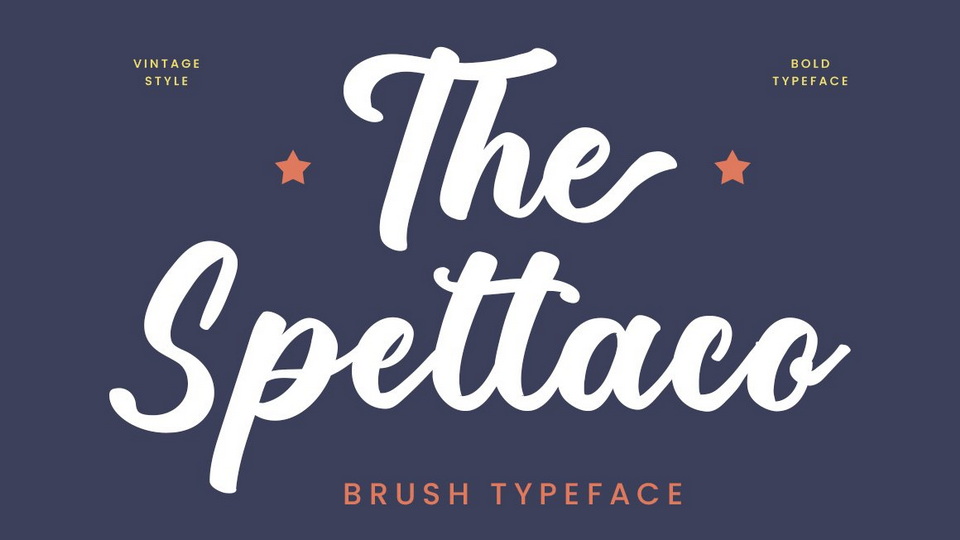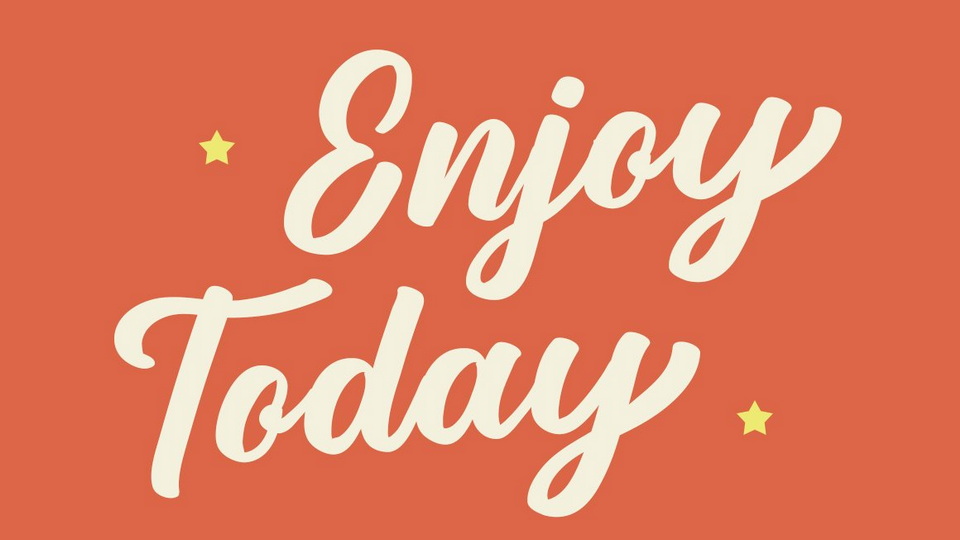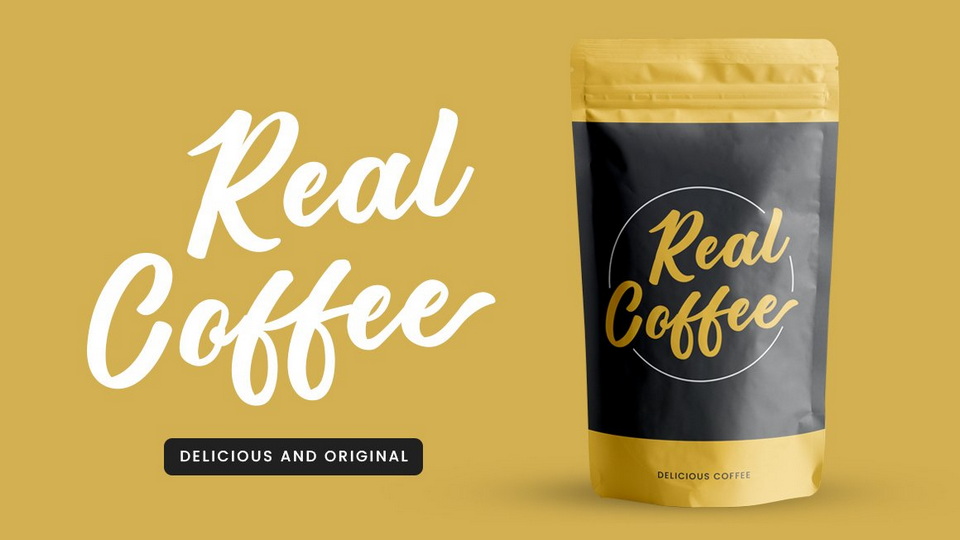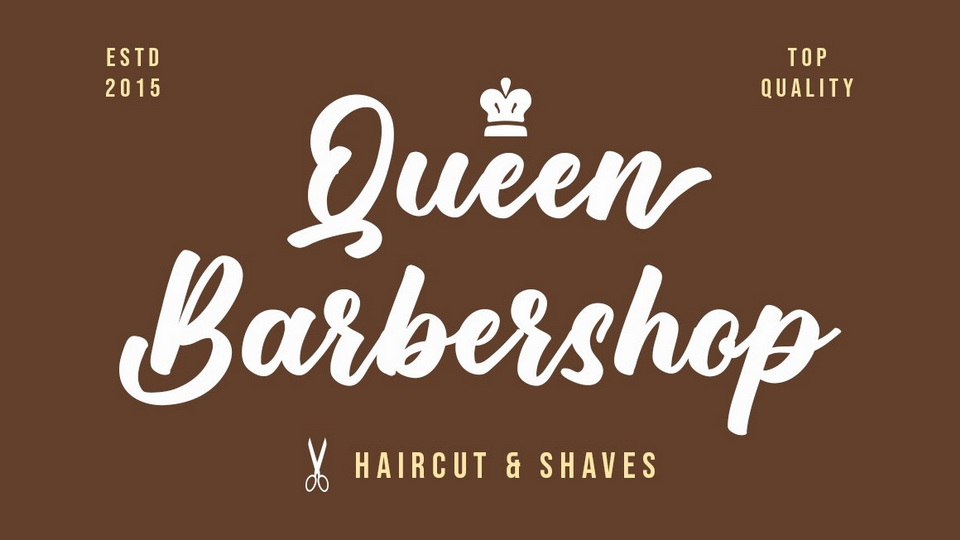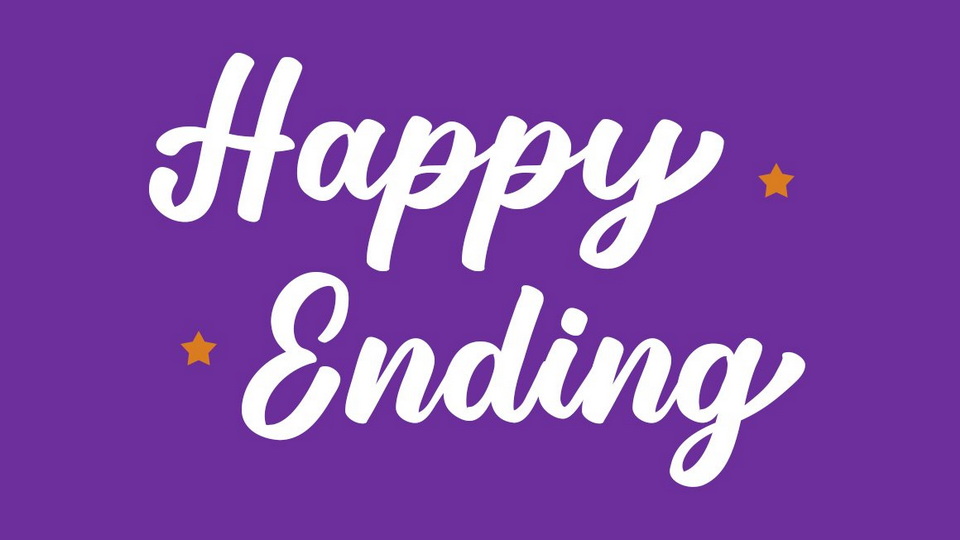
This is our latest product called The Spettaco. The Spettaco is a brush calligraphy font with beautiful and cool curves.
This font is suitable for t-shirt designs, logos, magazines, quotes, fashion, watermarks, invitations.